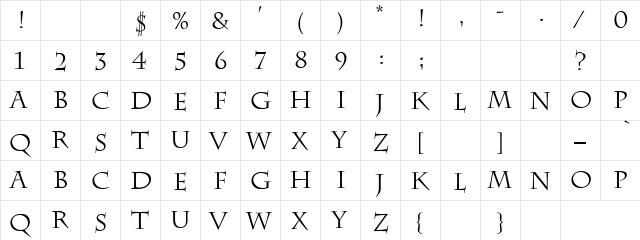
82 Regular
Design Context for 82 Typeface
82 offers clean, dependable letterforms without strong stylistic allegiance, making it a practical choice for designers who need flexibility.